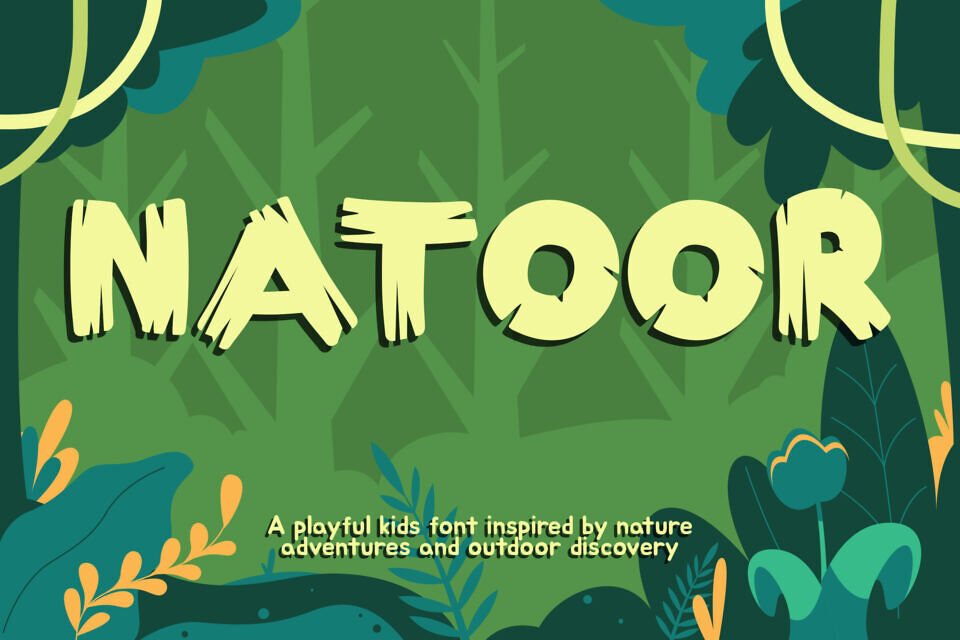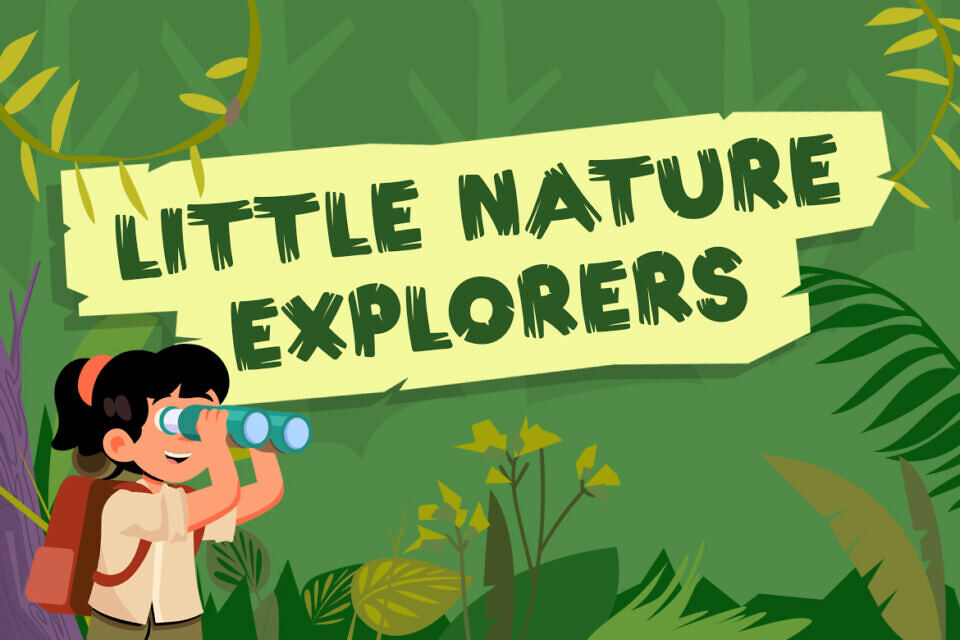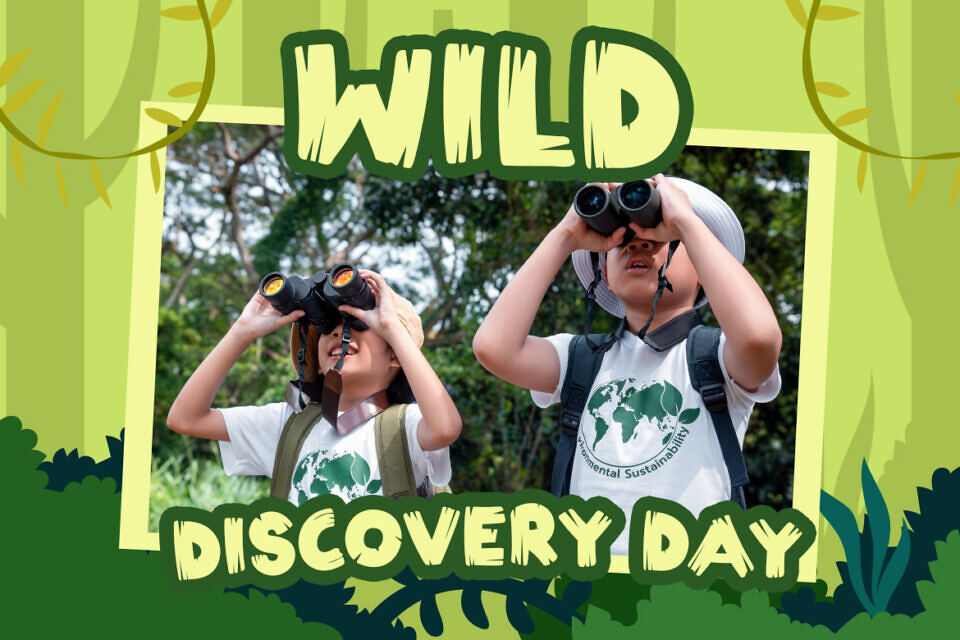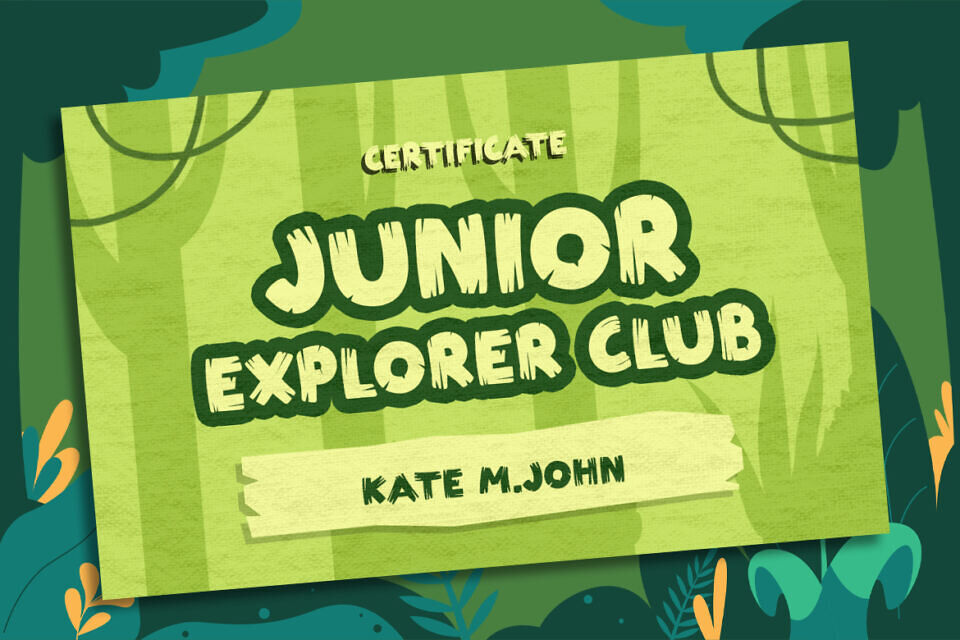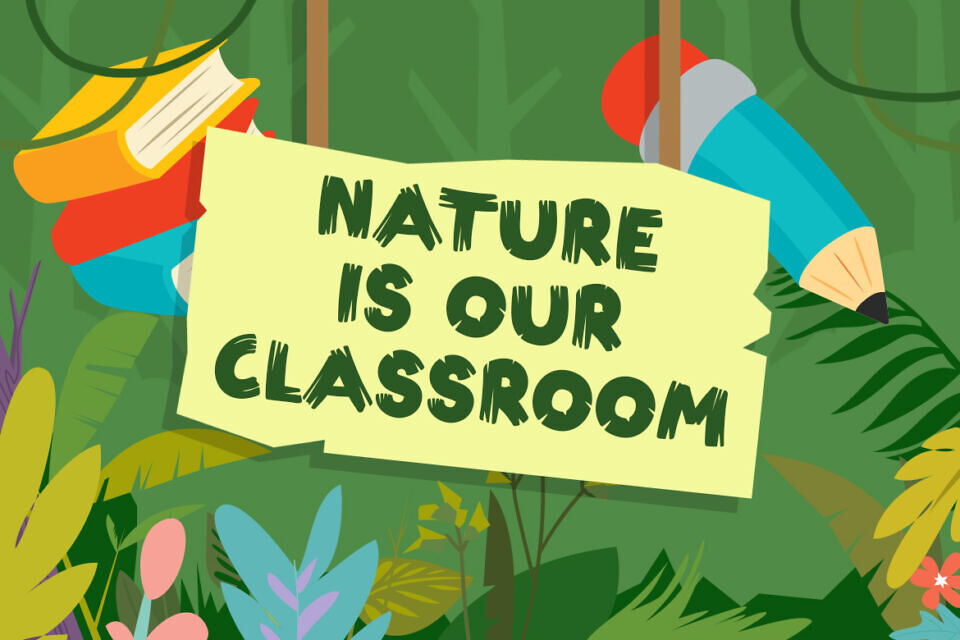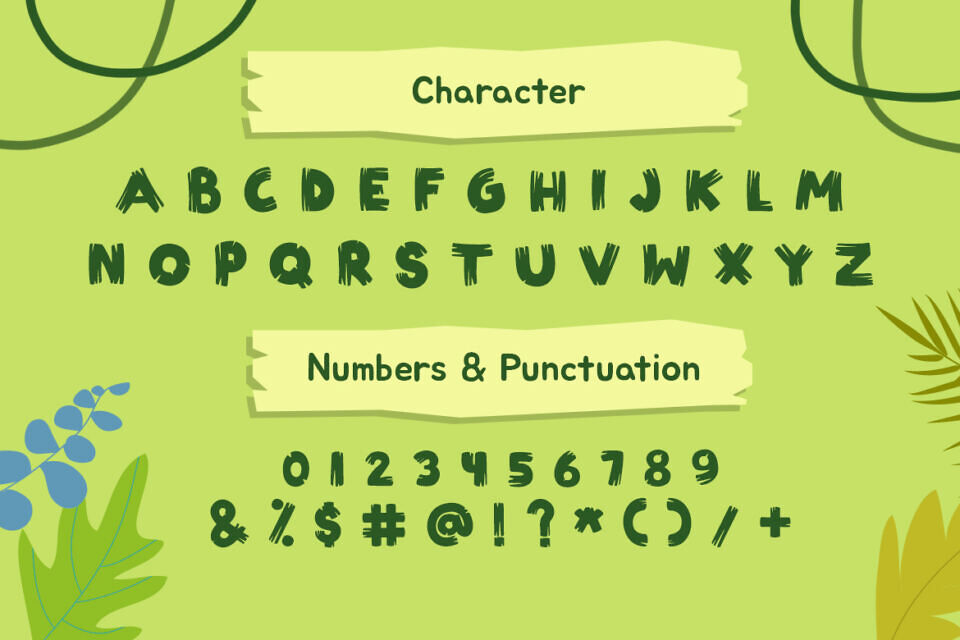
Natoor Font
NATOOR is a playful adventure-inspired typeface designed to capture the excitement of nature and outdoor exploration. At first glance, its bold shapes and slightly rugged edges immediately create a lively jungle and forest vibe. Moreover, the organic curves and hand-crafted style give the letters a natural, adventurous personality. As a result, every word feels energetic, fun, and full of discovery.
In addition, the font maintains clear readability, so it works beautifully for both headlines and creative titles. Because of this balance between playful aesthetics and usability, NATOOR easily brings storytelling, exploration, and imagination into kids-focused designs.